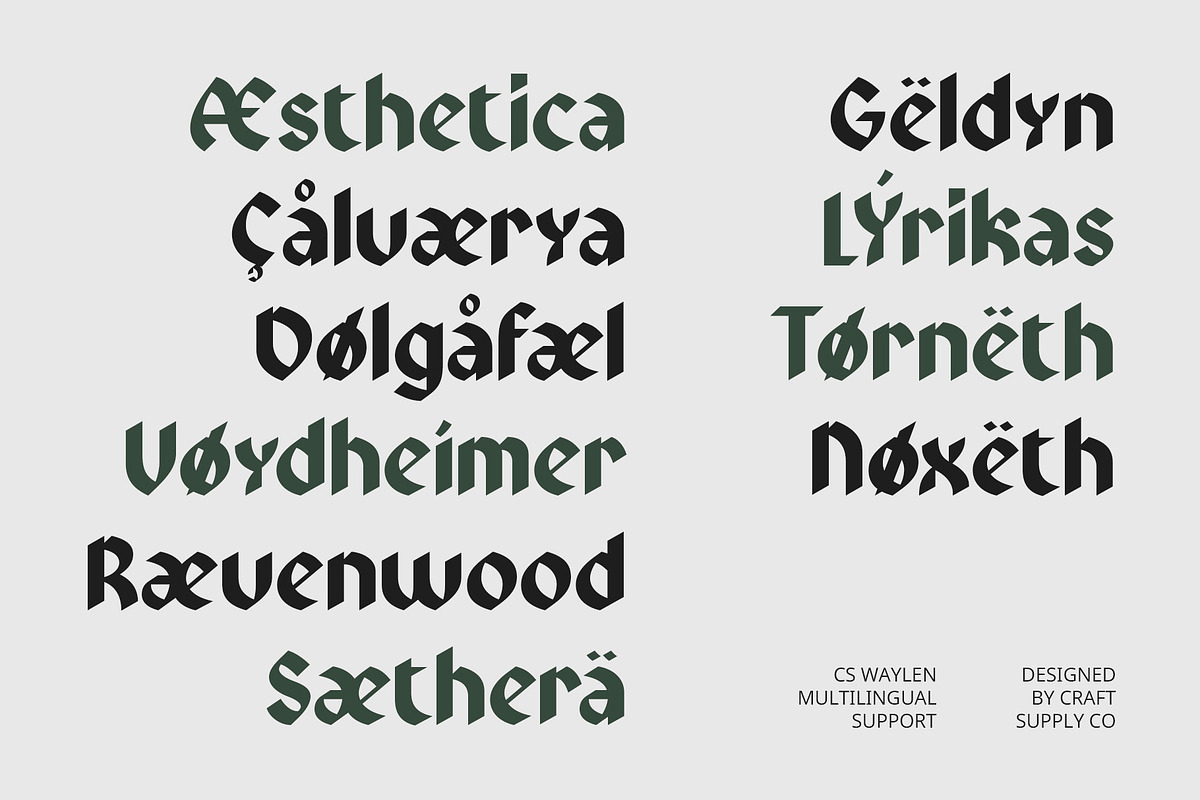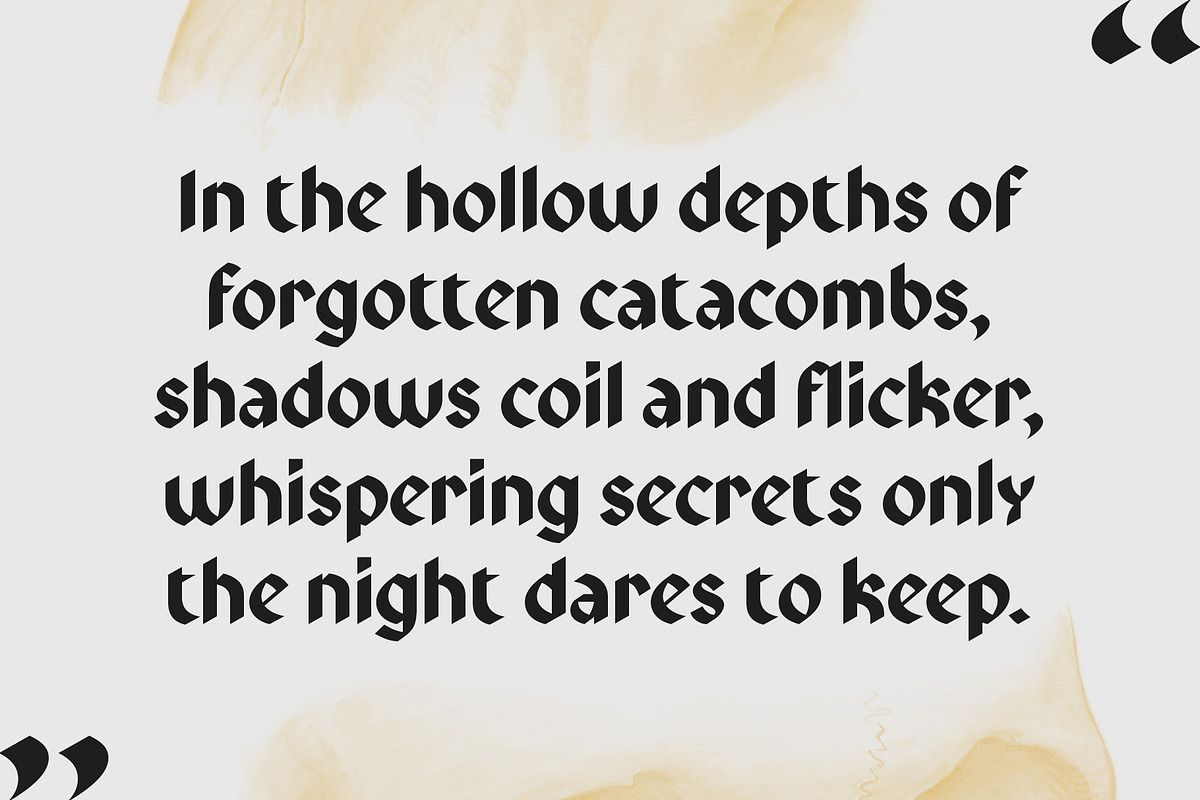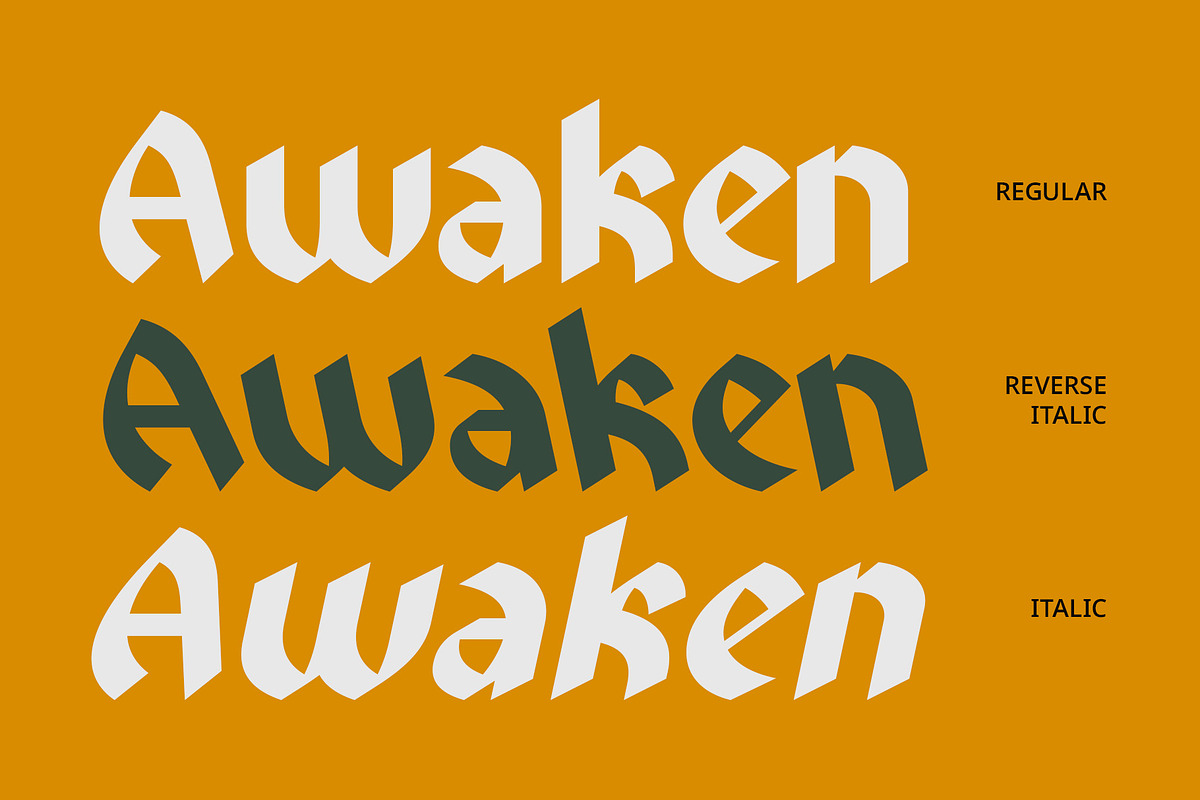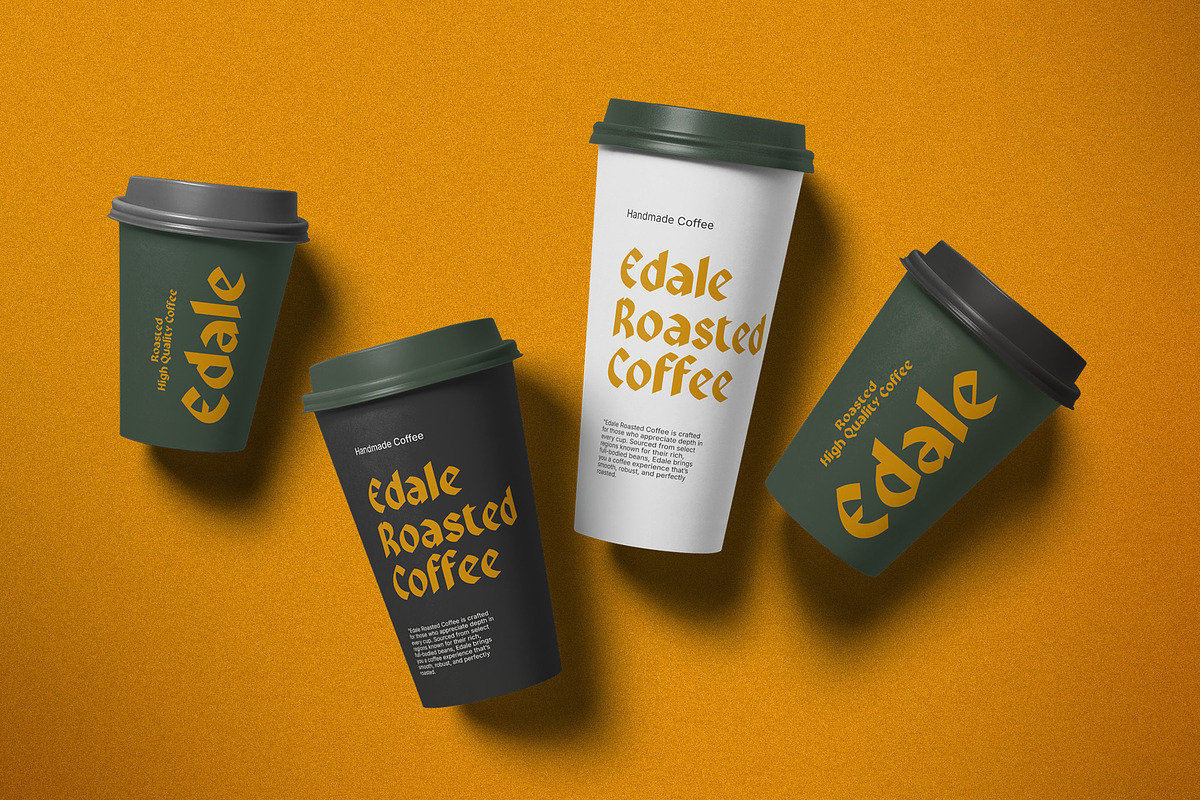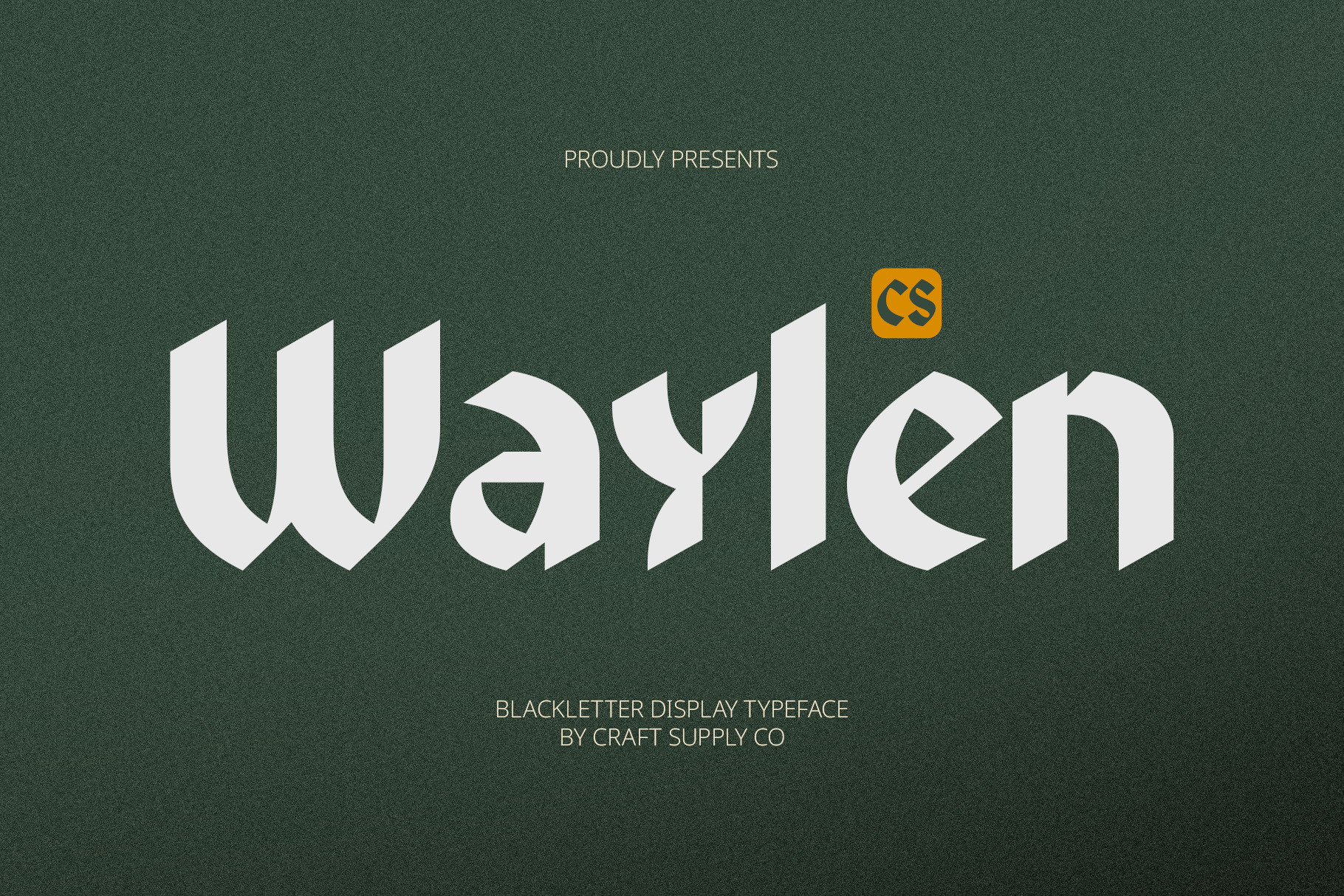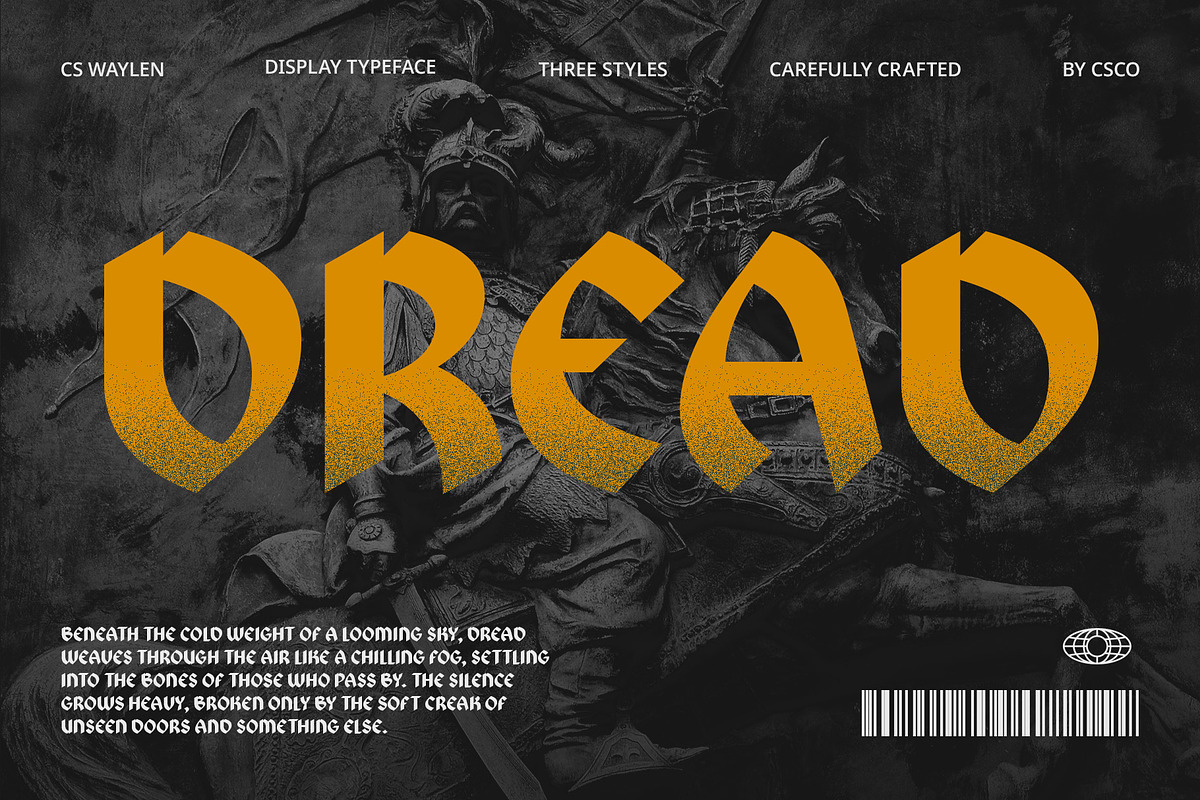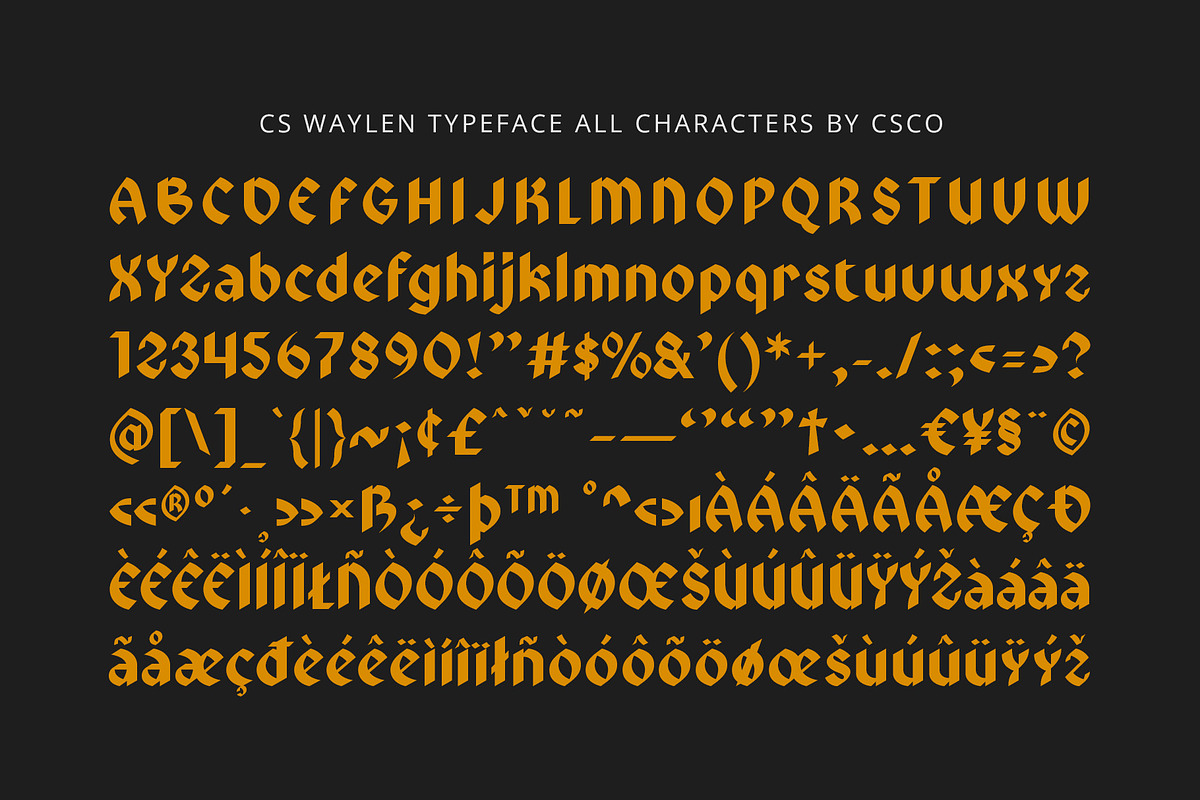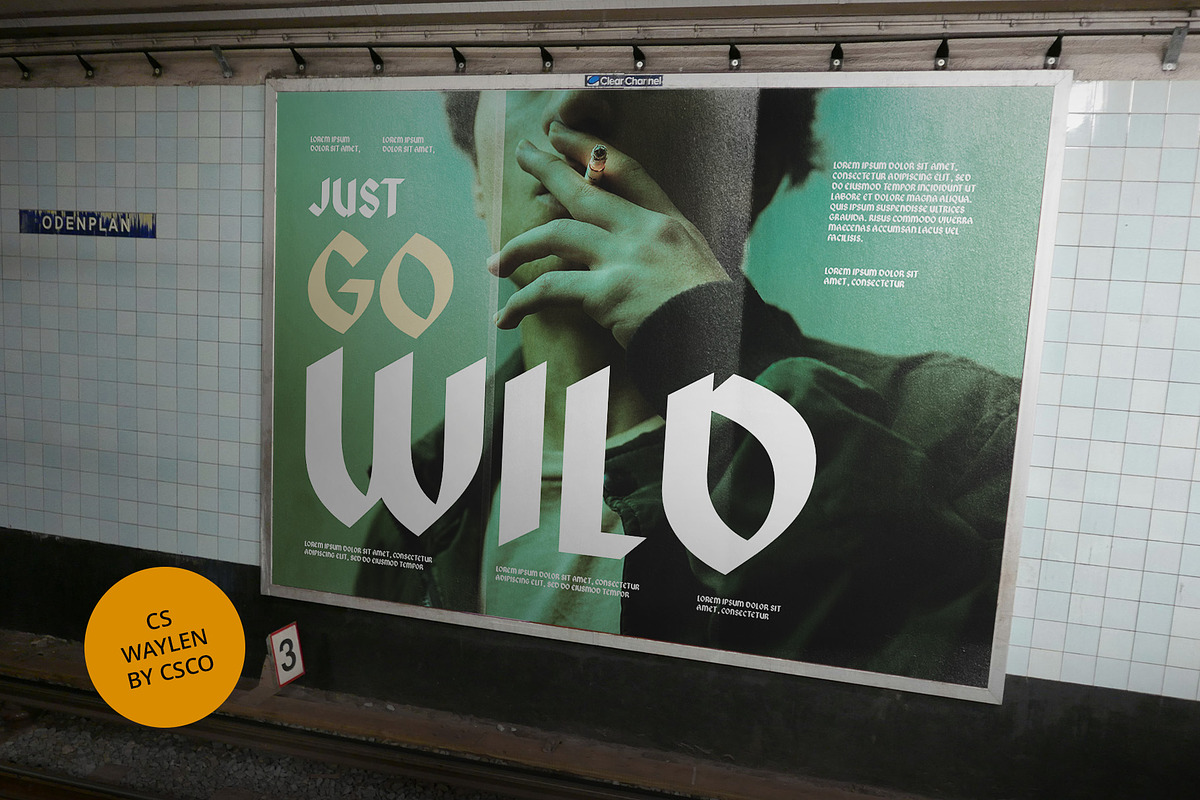
CS Waylen – Blackletter Font
CS Waylen – Blackletter Font: A Powerful Statement of Tradition
Bold Blackletter Display Font CS Waylen is a bold blackletter display font that embodies striking and dramatic characteristics, making it a standout choice for any design project. Its strong lines and sharp angles create an imposing sense of power and boldness, reflecting the artistry of medieval handwriting. This font captures the essence of traditional typography while exuding a contemporary appeal, making it perfect for modern applications.
Emphasizing Authority and Elegance Inspired by historical themes, CS Waylen is frequently utilized to convey traditional and formal aesthetics. Its thick letterforms are not only visually impactful but also highly effective for capturing attention. Whether used in event invitations, striking posters, or designs requiring a sense of grandeur, this font commands respect and admiration, making it ideal for projects that seek to project authority and elegance.
Versatile for Traditional and Contemporary Designs CS Waylen is versatile enough to suit a wide array of applications. From formal events to branding that honors heritage, its dramatic style makes it an excellent choice for designs that aim to leave a lasting impression. The font’s combination of strength and beauty allows it to seamlessly adapt to various contexts, whether you’re crafting historical-themed projects or modern interpretations of classic design.